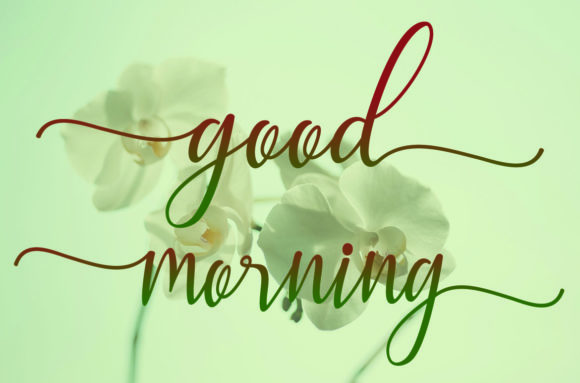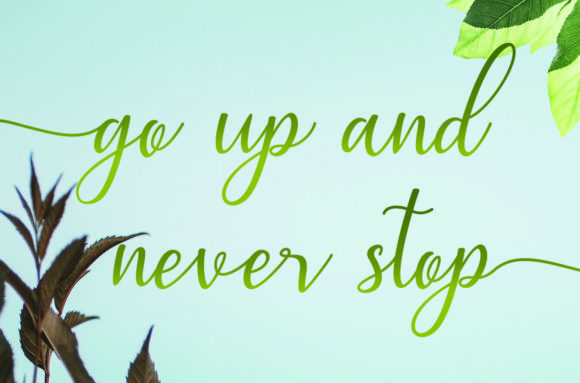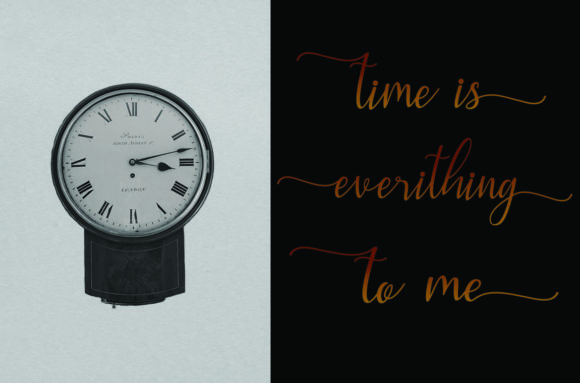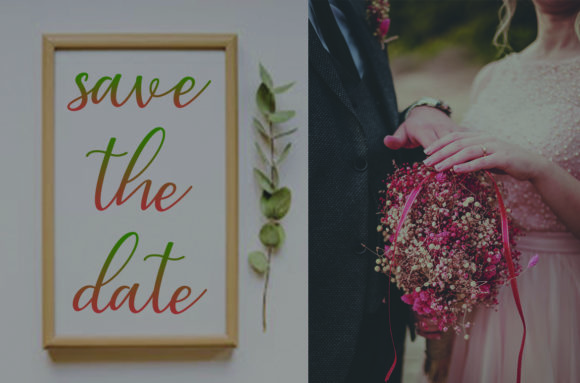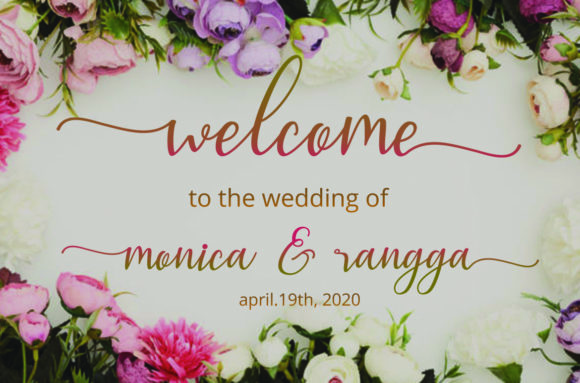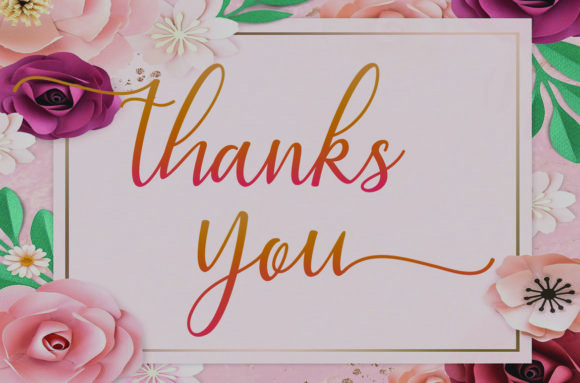
Introducing Halona Font: The Perfect Blend of Modern and Cute Handwritten Style
Are you a designer or crafter looking for a unique and versatile font to elevate your creative projects? Look no further than Halona Font, a modern and cute handwritten font that is sure to capture your heart. With its gorgeous swashes and ligatures, Halona is the perfect choice for creating stunning wedding invitations, beautiful stationary art, eye-catching social media posts, and adorable greeting cards.
The Characteristics of Halona Font
Halona Font is a script font that boasts a fresh and modern look, while still maintaining an authentic feel. Its handwritten style is characterized by:
- Gorgeous Swashes: Halona features beautiful swashes that add a touch of elegance and sophistication to any design.
- Ligatures: The font includes a range of ligatures that allow you to create unique and flowing text that is sure to impress.
- Modern and Cute: Halona’s modern and cute style makes it perfect for a wide range of creative projects, from wedding invitations to social media posts.
Uses for Halona Font
Halona Font is incredibly versatile, making it suitable for a wide range of creative projects. Here are just a few ideas to get you started:
- Wedding Invitations: Create stunning wedding invitations that set the tone for a beautiful and memorable day.
- Stationary Art: Use Halona to create beautiful stationary art, including letterheads, journals, and planners.
- Social Media Posts: Add a touch of personality to your social media posts with Halona’s modern and cute style.
- Greeting Cards: Create adorable greeting cards for special occasions, including birthdays, holidays, and more.
Why Choose Halona Font?
With so many fonts to choose from, why should you choose Halona? Here are just a few reasons:
- Unique and Versatile: Halona’s unique blend of modern and cute styles makes it a versatile font that can be used for a wide range of creative projects.
- Elegant and Sophisticated: Halona’s gorgeous swashes and ligatures add an touch of elegance and sophistication to any design.
- Easy to Read: Despite its ornate style, Halona is easy to read, making it perfect for body text and headlines.
Tips for Using Halona Font
To get the most out of Halona Font, here are a few tips:
- Experiment with Swashes: Don’t be afraid to experiment with Halona’s gorgeous swashes to add a touch of personality to your design.
- Mix and Match: Try mixing and matching Halona with other fonts to create a unique and eye-catching design.
- Pay Attention to Ligatures: Make sure to pay attention to Halona’s ligatures, which can add a touch of elegance and sophistication to your design.
Halona Font is a modern and cute handwritten font that is sure to capture your heart. With its gorgeous swashes and ligatures, Halona is the perfect choice for creating stunning wedding invitations, beautiful stationary art, eye-catching social media posts, and adorable greeting cards. Whether you’re a designer or crafter, Halona is a versatile font that is sure to elevate your creative projects.